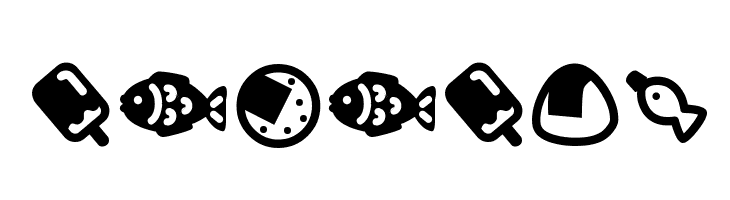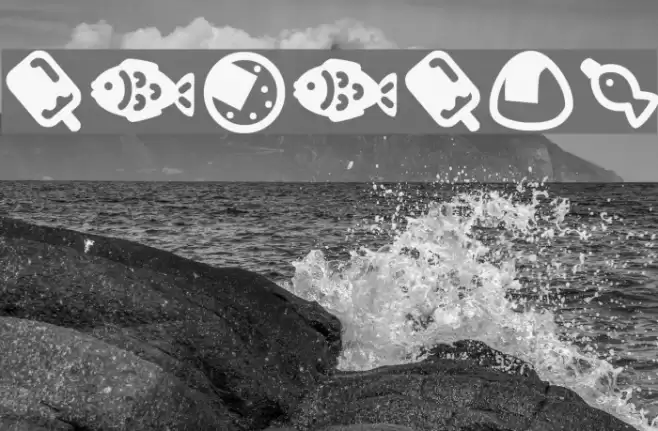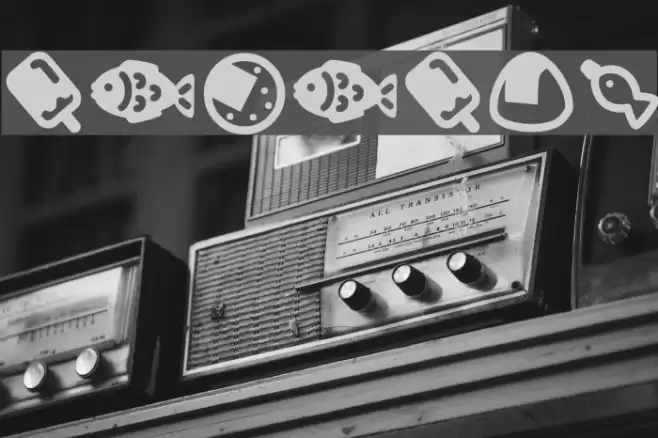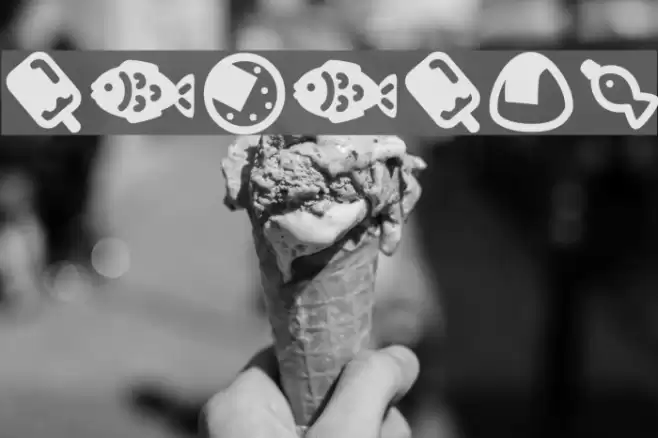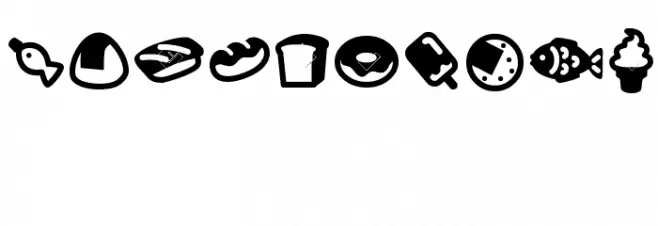
HotDogsNFishDingbats Font
HotDogsNFishDingbats Description
| Overall Style | Playful, Decorative |
| Use Case | Icons, Decorative elements, Themed graphics |
| Proposed Projects | Menus, children's books, food packaging, party invitations, educational materials. |